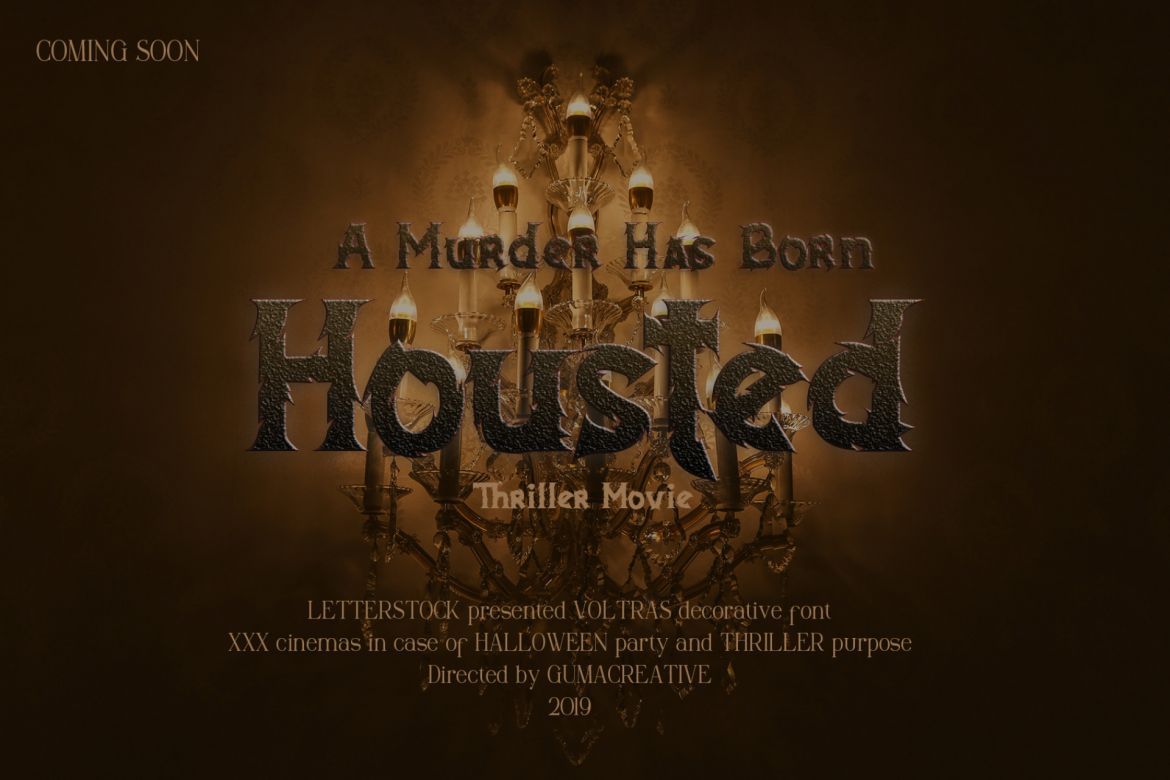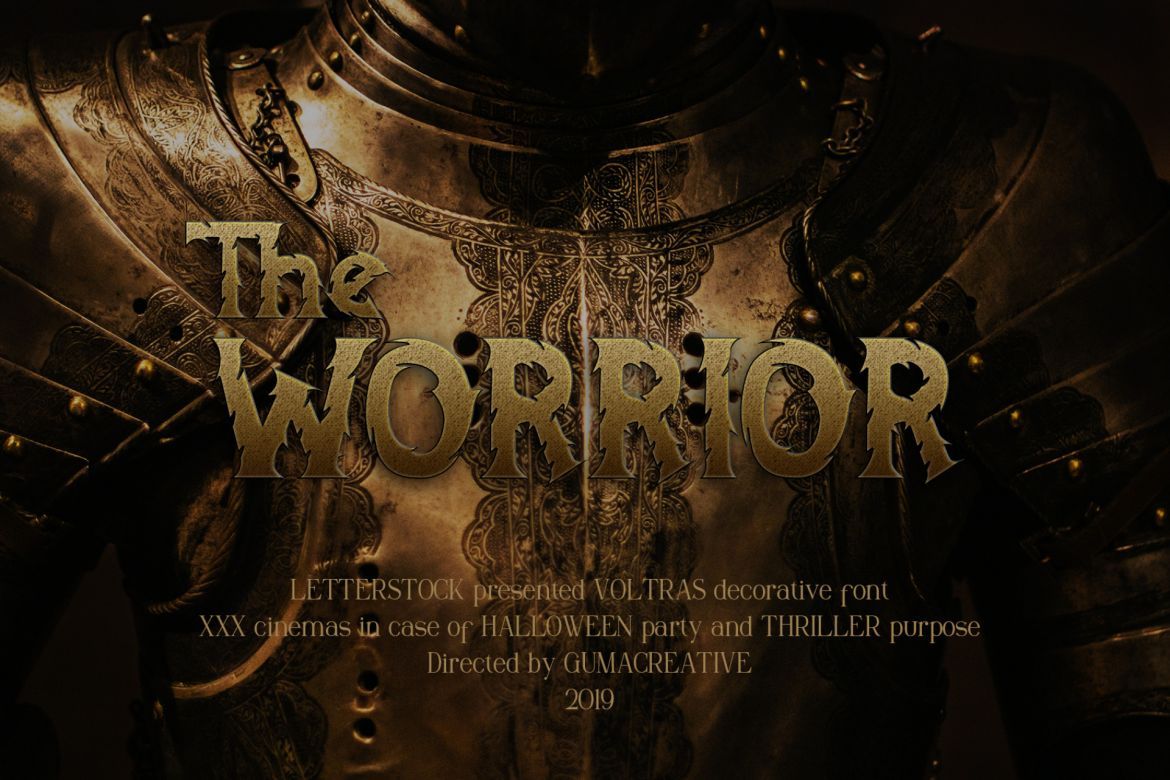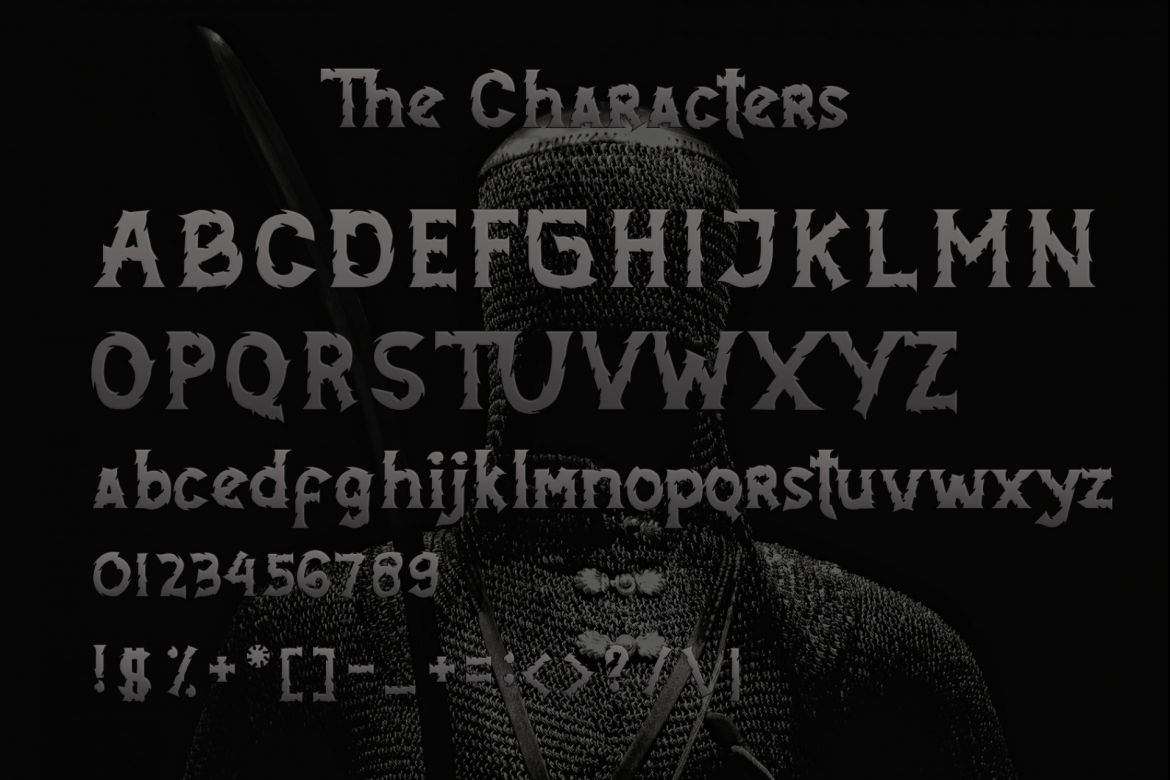
Voltras Decorative Font
-- Thriller / Strong / Decorative --
Voltras is a decorative font. Inspired by a retro thriller movie poster and i try to combine it with a modern concept. it's perfect for you to show your design or product in professional way.
Voltras works great in any branding, logos, magazines, films, poster, flyer, sign board.
• original hand drawn font
• perfect for thriller theme file